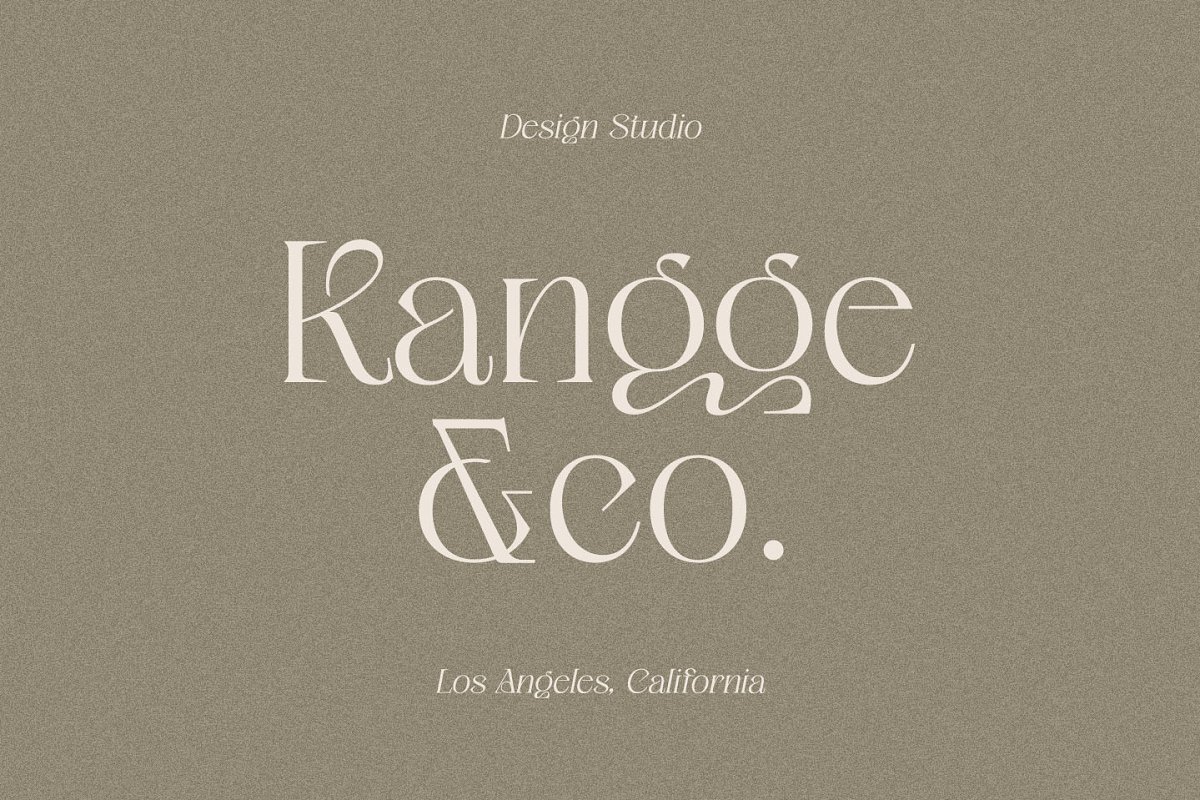
About the Ageya Modern Elegant Serif Font
Ageya is a modern and elegant serif font, Ageya is well-suited for advertising, branding, logotypes, packaging, titles, headlines and editorial design, This font comes in two styles, Regular and Italic Version, This font is encoded with Unicode PUA, which allows full access to all additional characters without having special design software, Mac users can use Font Book, and Windows users can use Character Map to view and copy one of the extra characters to paste into your favorite text editor / application